Dark aesthetics have carved out a massive space in modern pop culture and urban fashion. From underground streetwear collections to metal festival posters, vintage calligraphy brings dramatic drama. Using blackletter gothic fonts gives your creative graphics an intense, commanding edge.
Here is how to style medieval gothic typography for modern apparel and dark branding.
1. Intricate Sharp Strokes Create Dramatic Contrast
Blackletter typography features sharp angular strokes inspired by medieval manuscripts. For instance, dark gothic typefaces offer dense visual texture. Consequently, your headlines look powerful, artistic, and mysterious.
2. Perfect Applications for Heavy Metal and Streetwear
Gothic lettering performs exceptionally well across dark fashion categories:
- Streetwear Apparel: Looks striking printed large on oversized black hoodies, sweatpants, and denim jackets.
- Craft Beverage Labels: Adds a dark medieval aesthetic to craft beers, spiced rums, and energy drinks.
- Album Covers & Posters: Delivers an authentic look for band logos and event artwork.
3. Use High-Contrast Colors to Maximize Readability
Because gothic letterforms are visually dense, contrast is vital. Always place white, metallic silver, or bright crimson text on dark charcoal backgrounds. Furthermore, give your letters slightly wider spacing so the intricate angular strokes do not merge during printing.
Recommended Fonts from Artisan Font
- Reblade: A sharp blackletter font engineered for dark streetwear graphics and bold headlines.
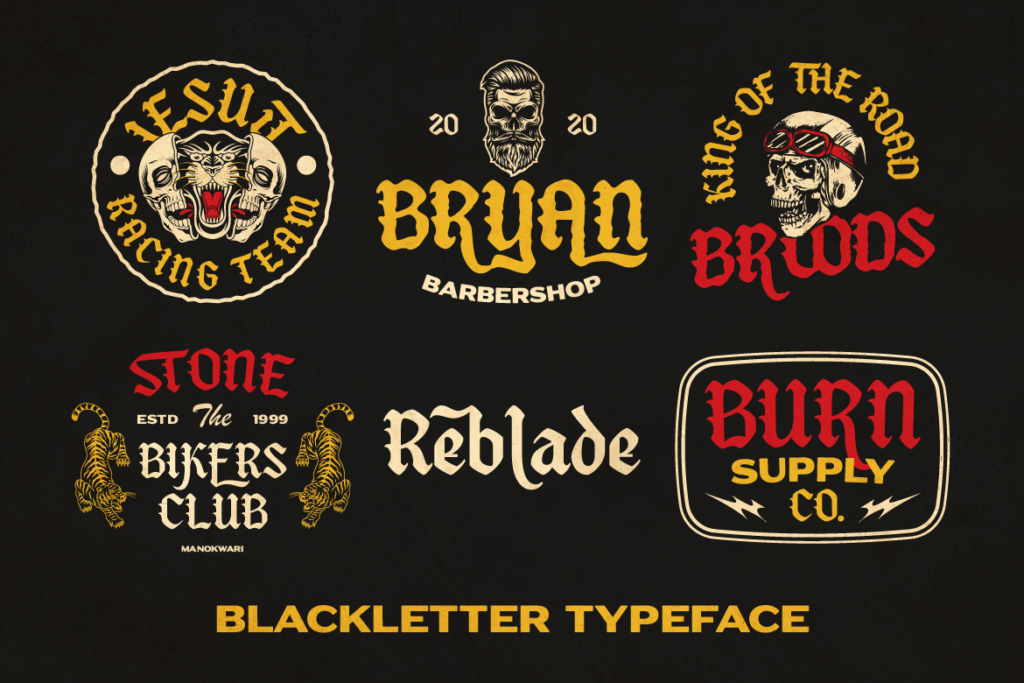
- Madwitch: A spooky typeface designed with eerie strokes for Halloween apparel and dark labels.